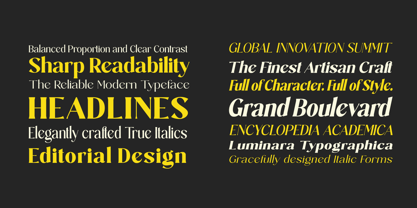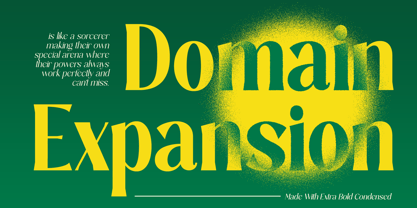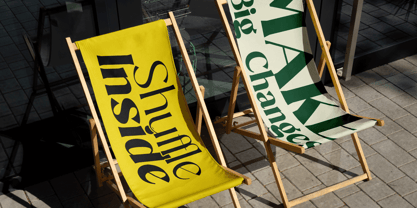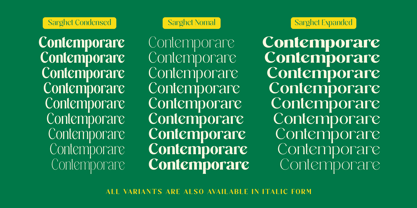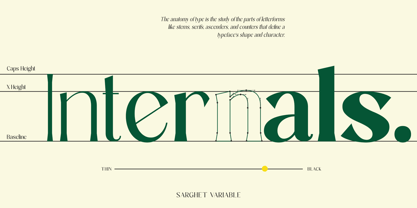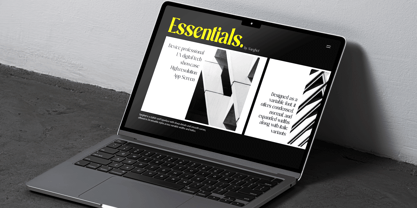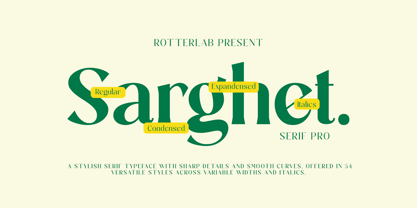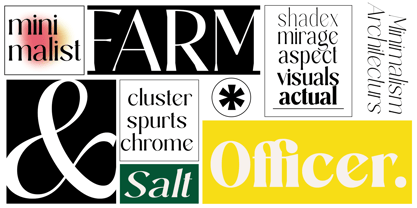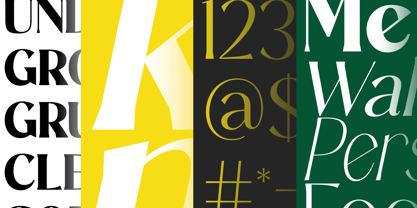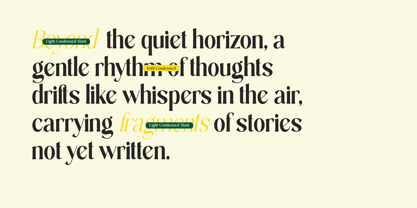
Sarghet
by Rotterlab Studio
The Sarghet Font Family was designed by Sidiq Fahmi and published by Rotterlab Studio. Sarghet contains 55 styles and family package options. More about this family
Sarghet Serif Pro is a modern serif typeface family designed with sharp details and smooth curves, presenting a blend of classic brotherhood and contemporary nuances. With a total of 54 versatile styles, including Regular, Condensed, Expanded, and Italics, this font provides full meaning for various typographic needs, both in branding design, editorial, and other creative projects. Its bold yet refined character makes it the right choice to create a professional and stylish impression, thus strengthening visual identity in every context of use. Designed to provide a balance between readability and aesthetics, Sarghet Serif Pro is ideal for use in large titles, logos, and publication layouts that demand an elegant and classy look.
Sarghet